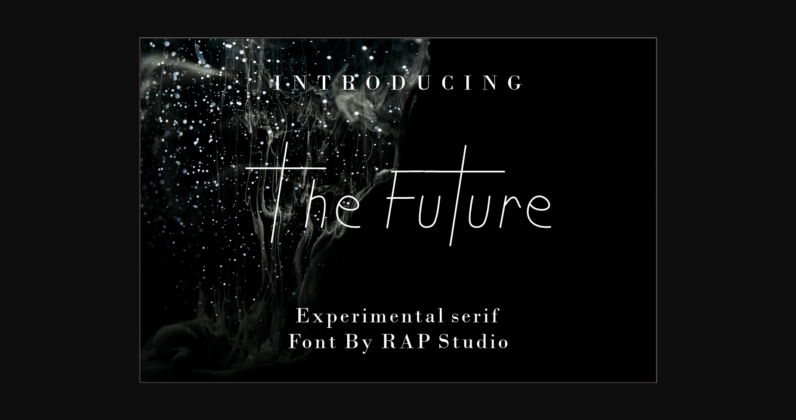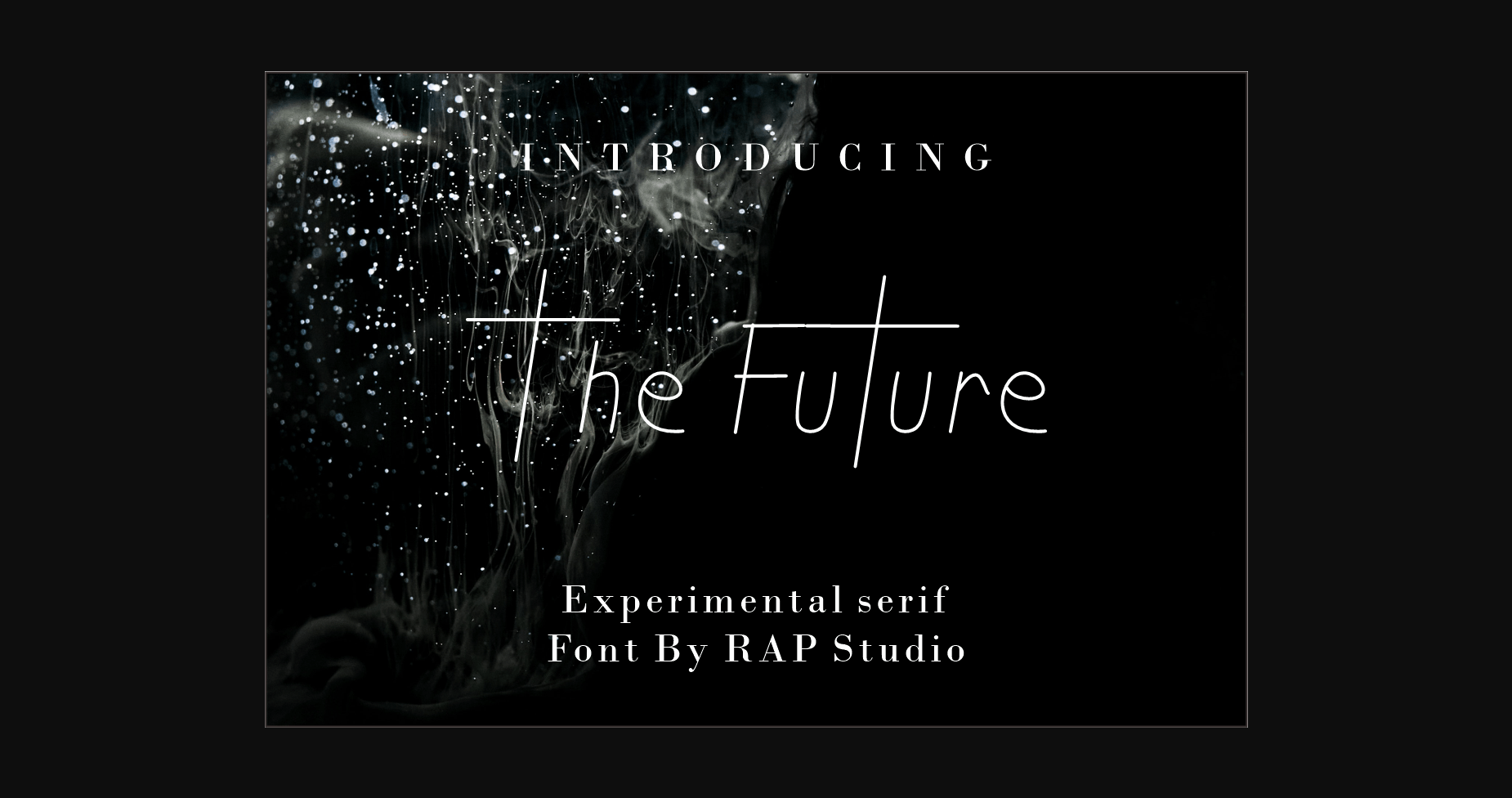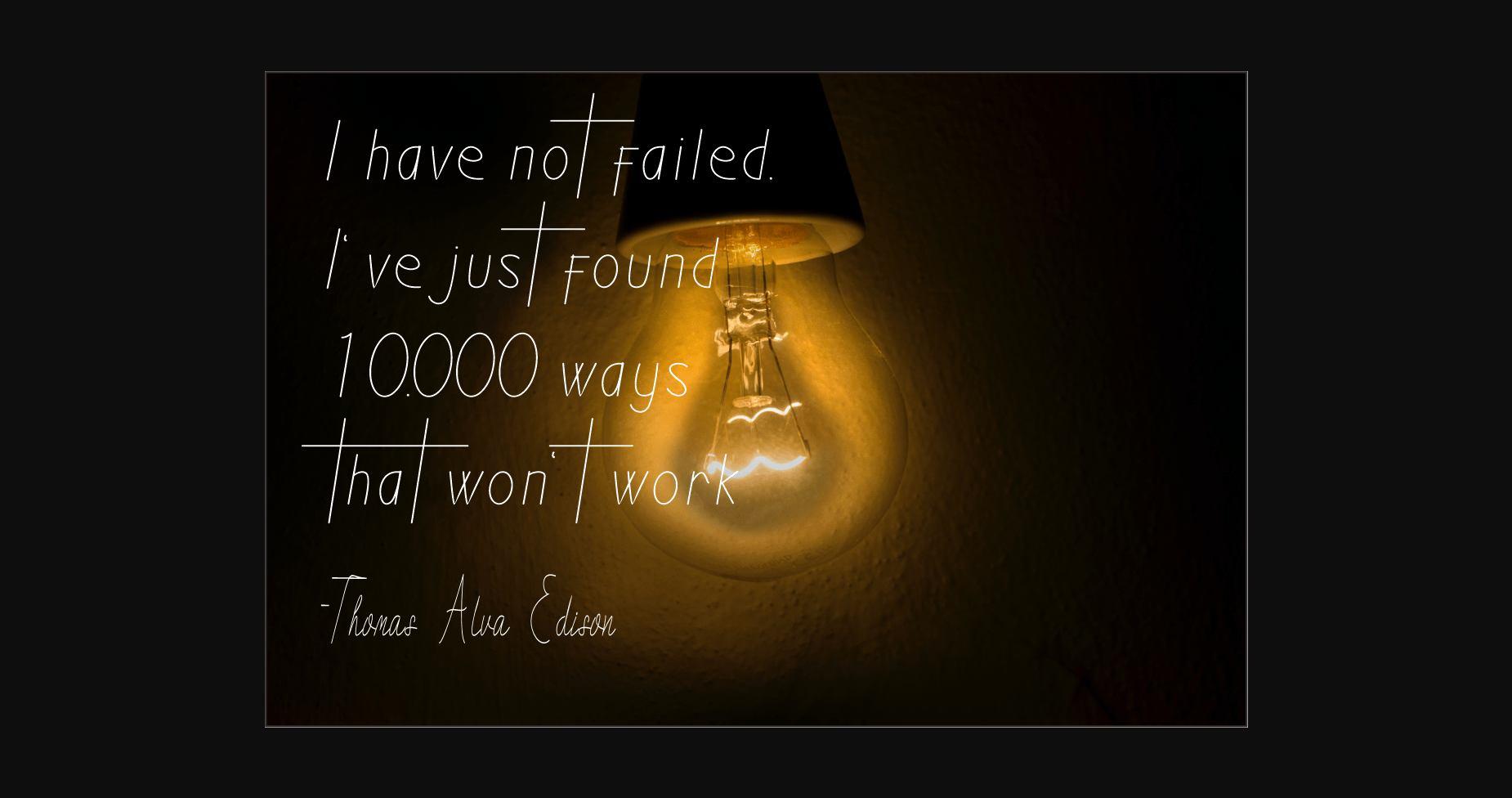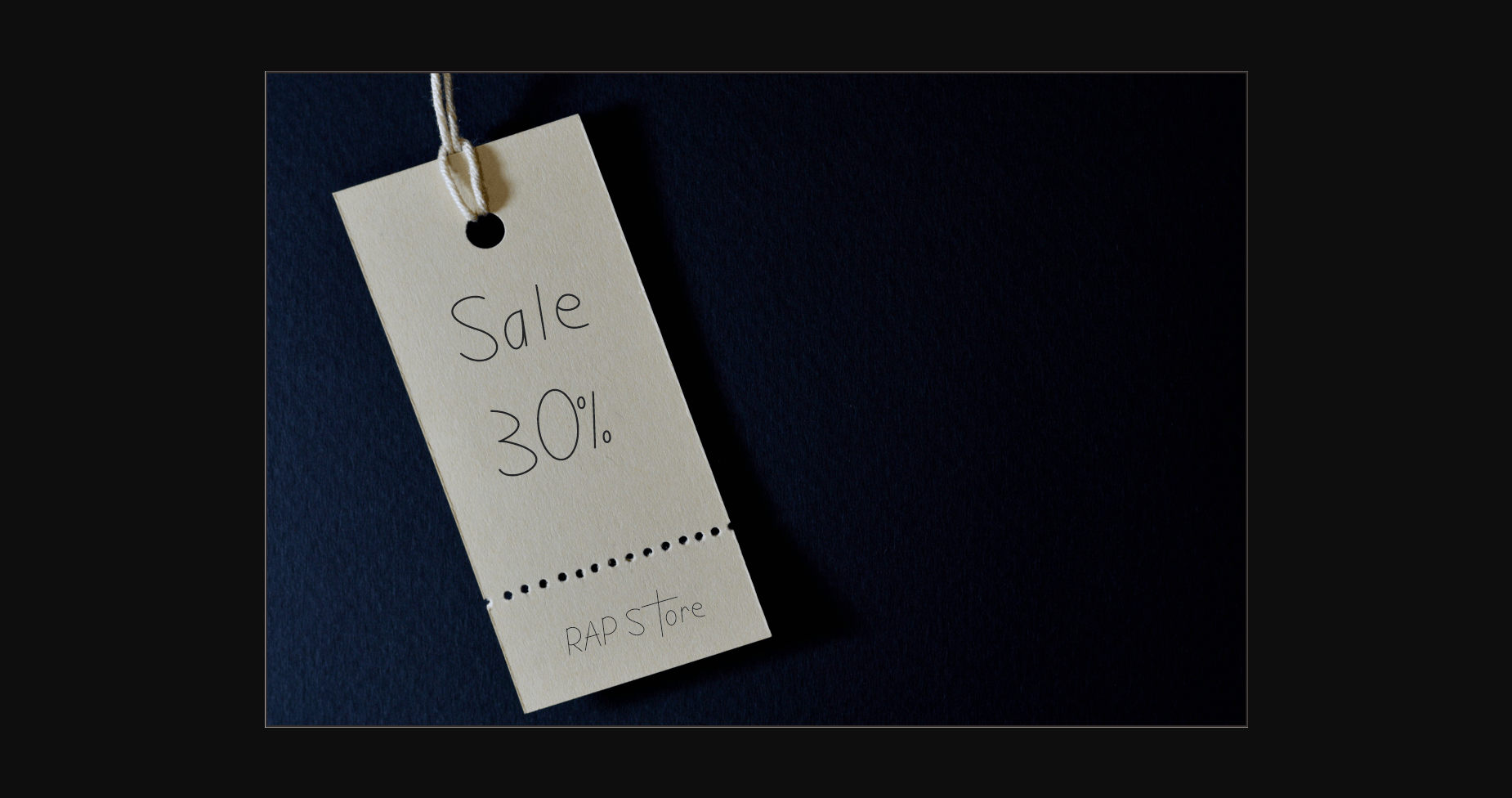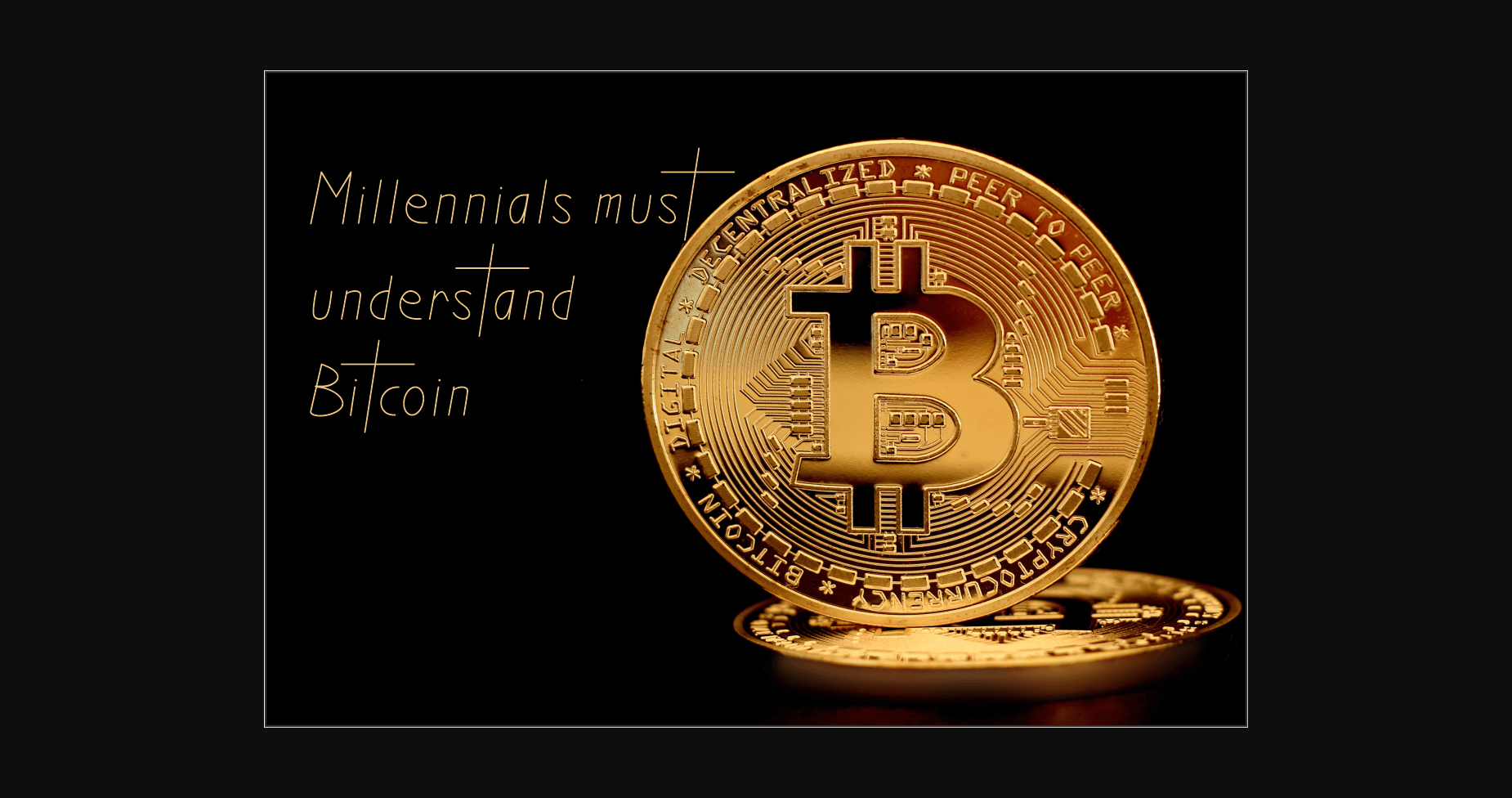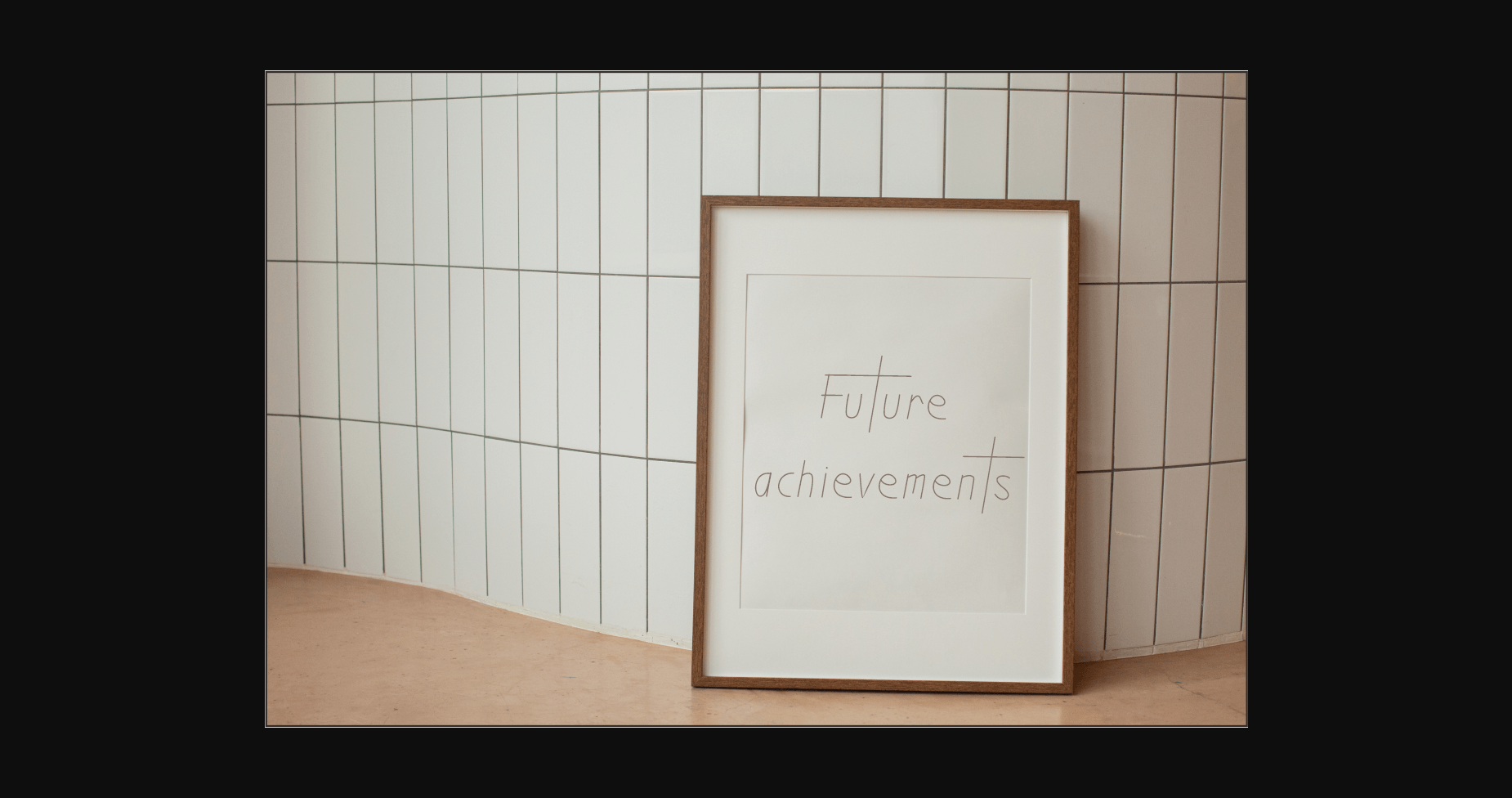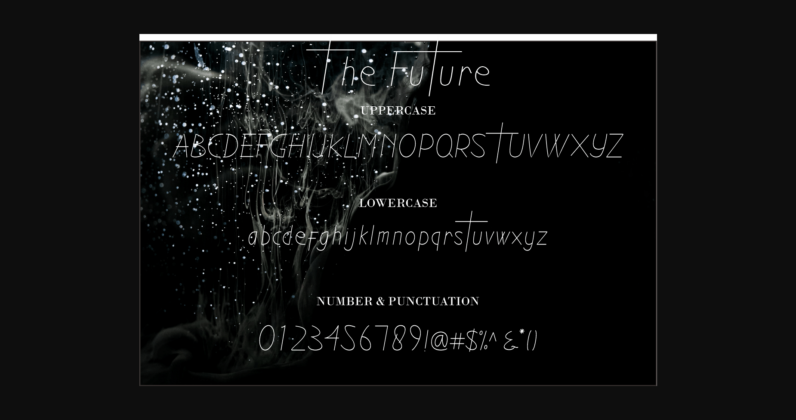
About The Future Font
The Future is a minimal and neat sans serif font. It can easily fit into a very large set of projects, so add it to your creative ideas and watch how it makes them stand out!
Future is perfect for branding, signatures, and more!